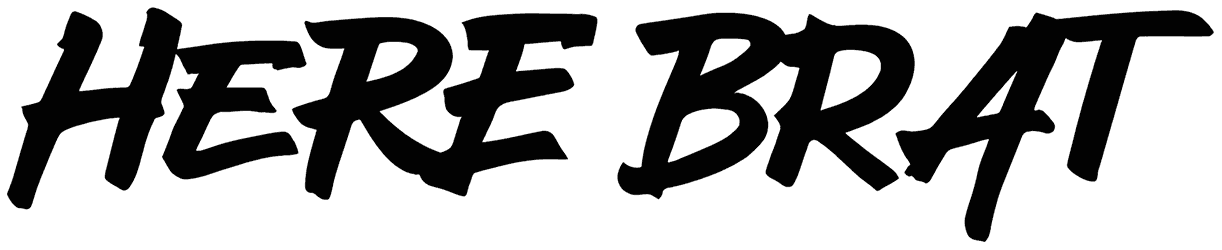
Here Brat Font
Give your design an attractive look with a cool and urban mood. This brush font, which is called Here Brat, has playful and natural lettering. As an 80s font, the Here Brat font doesn’t support lowercase letters, but with two sets of uppercase, it will be an apt choice for many layouts, such as banners, apparel, packaging, and the like.